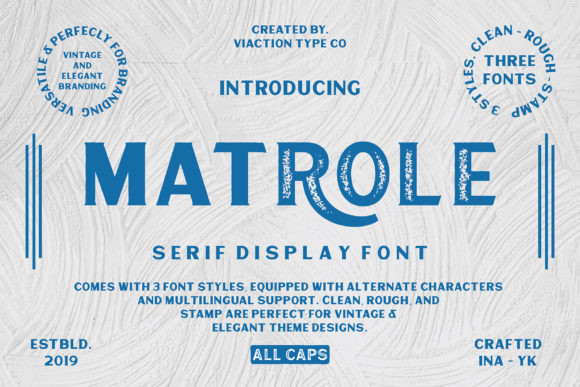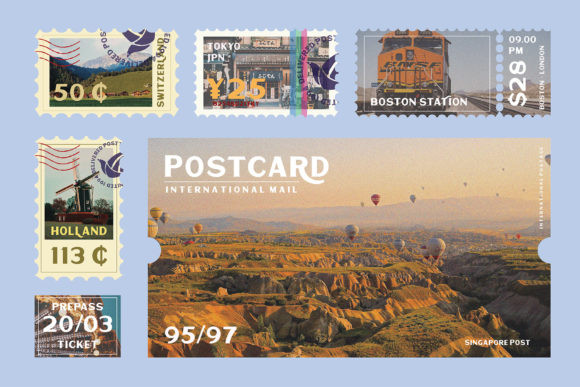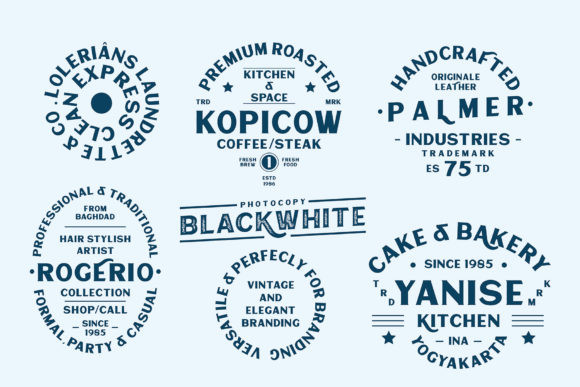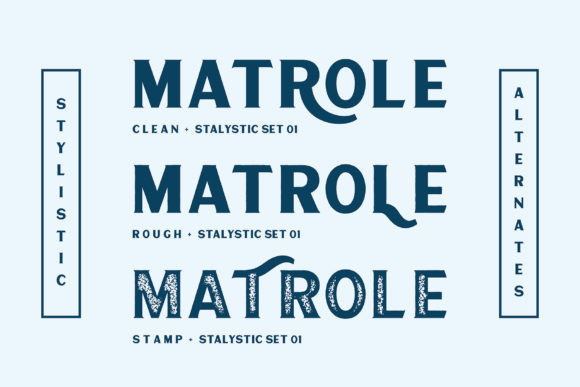
Matrole Font
Matrole is a beautiful display font that comes in three distinct versions: clean, rough & stamp. These three versions make it an incredibly versatile font.